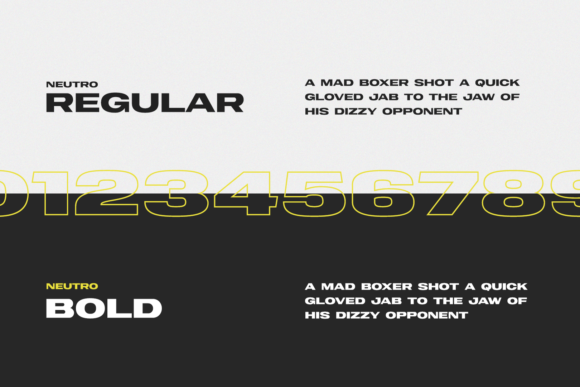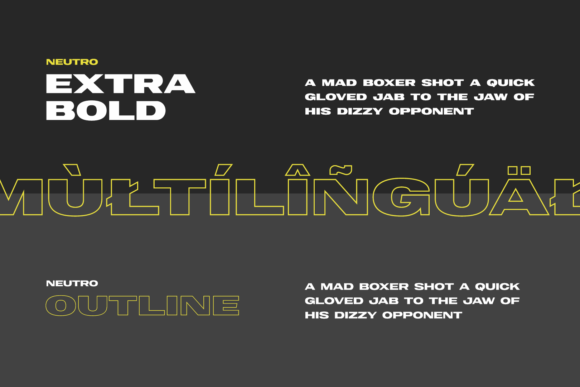
Introduction to Neutro Font
Have you ever been in the midst of a creative project, pouring your heart and soul into every detail, only to feel like something’s missing? You’ve nailed the concept, the color palette, and the composition, but the typography just doesn’t seem to be doing justice to your vision. That’s where the Neutro Font comes in – a bold and chunky lettered display font that can breathe life into even the most mundane designs.
Unlocking the Power of Neutro Font
As a valuable design resource, the Neutro Font offers a high-quality solution for designers looking to elevate their creative projects. With its unique and eye-catching style, it’s perfect for adding a touch of personality to your designs. Whether you’re working on a project that requires a free download or need a font with a transparent background, the Neutro Font is an excellent choice.
The Perfect Addition to Your Design Toolbox
By incorporating the Neutro Font into your design repertoire, you’ll be able to take your creative ideas to the next level. Its versatility and bold aesthetic make it an ideal choice for a wide range of design applications, from logos and branding to digital graphics and print materials. So why settle for ordinary when you can make a statement with the Neutro Font?
Key Features of Neutro Font
- High-quality design resource with a transparent background, ideal for creative projects.
- Neutro Font features a clean and modern design, making it perfect for use in logos, branding, and other visual identity projects.
- Includes a range of weights and styles, allowing for flexibility in typography and creative expression.
- Designed to be versatile and adaptable, Neutro Font is an excellent choice for designers working on a variety of creative projects.
Honest Review: Neutro Font
As a designer, I’m always on the lookout for high-quality design resources to elevate my creative projects. Recently, I stumbled upon the Neutro Font, and I must say, it’s been a game-changer.
What works well: ✨ The Neutro Font is incredibly versatile, with a clean and modern aesthetic that can be used for a wide range of design applications. It’s also available for free download, making it a fantastic resource for designers on a budget. The font also features a transparent background, which is a huge plus for designers who need to work with images and graphics.
Some limitations: ⚠️ While the Neutro Font is a great addition to any design library, it’s not without its limitations. The font is a bit on the heavier side, which can make it difficult to read in certain contexts. Additionally, the font doesn’t come with as many variations as some other popular fonts on the market.
Overall impression: The Neutro Font is a solid choice for designers who need a high-quality, free font for their creative projects. While it may not be the most comprehensive font, it’s a great addition to any design library, and its versatility and clean aesthetic make it a great choice for a wide range of design applications.
Pros:
- High-quality, modern aesthetic
Cons:
- Can be difficult to read in certain contexts
- Limited variations